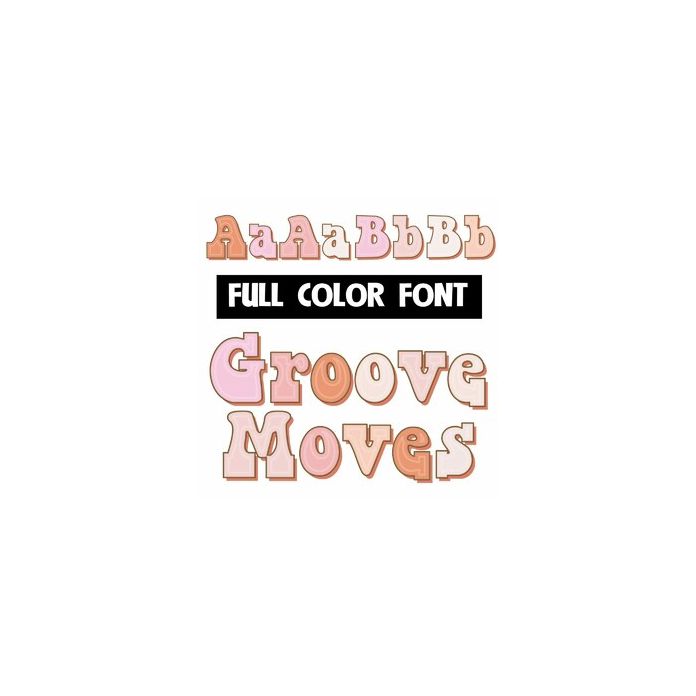
This full-color font features a retro font with a peachy/warm color palette. There is an alt upper and lowercase with additional colors that you can access through Silhouette's glyph map.